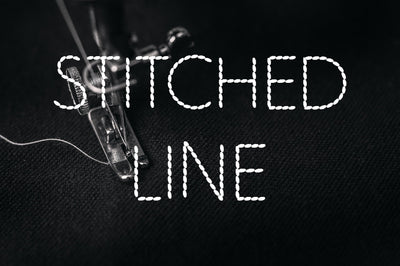
Stitched Line Font
Stitched Line Typeface.
Cool looking dashed typeface.
Great for posters, embroidery craft, invitations, art and crafts, T-Shirts and more.